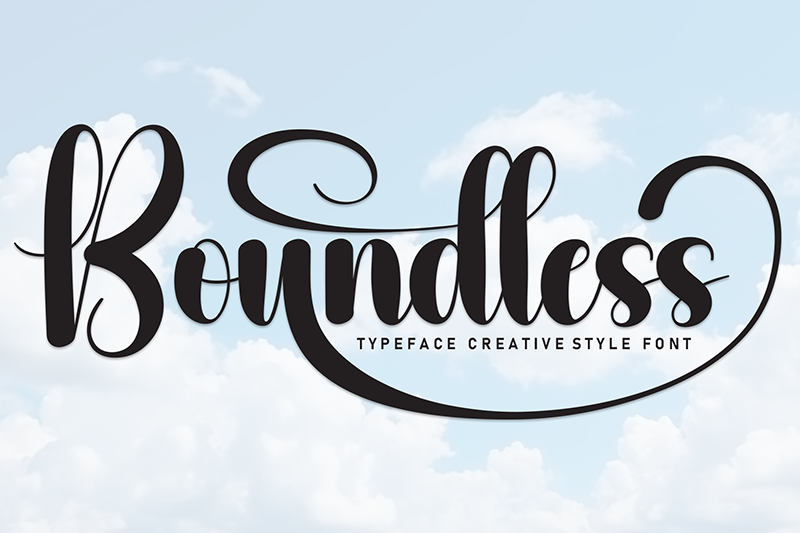
Boundless
the latest style letters are perfect for wall displays, wedding invitations, social media post logos,
advertisements, product packaging, product designs, labels, photography, watermarks, invitations, stationery,
and any project that requires taste handwriting.